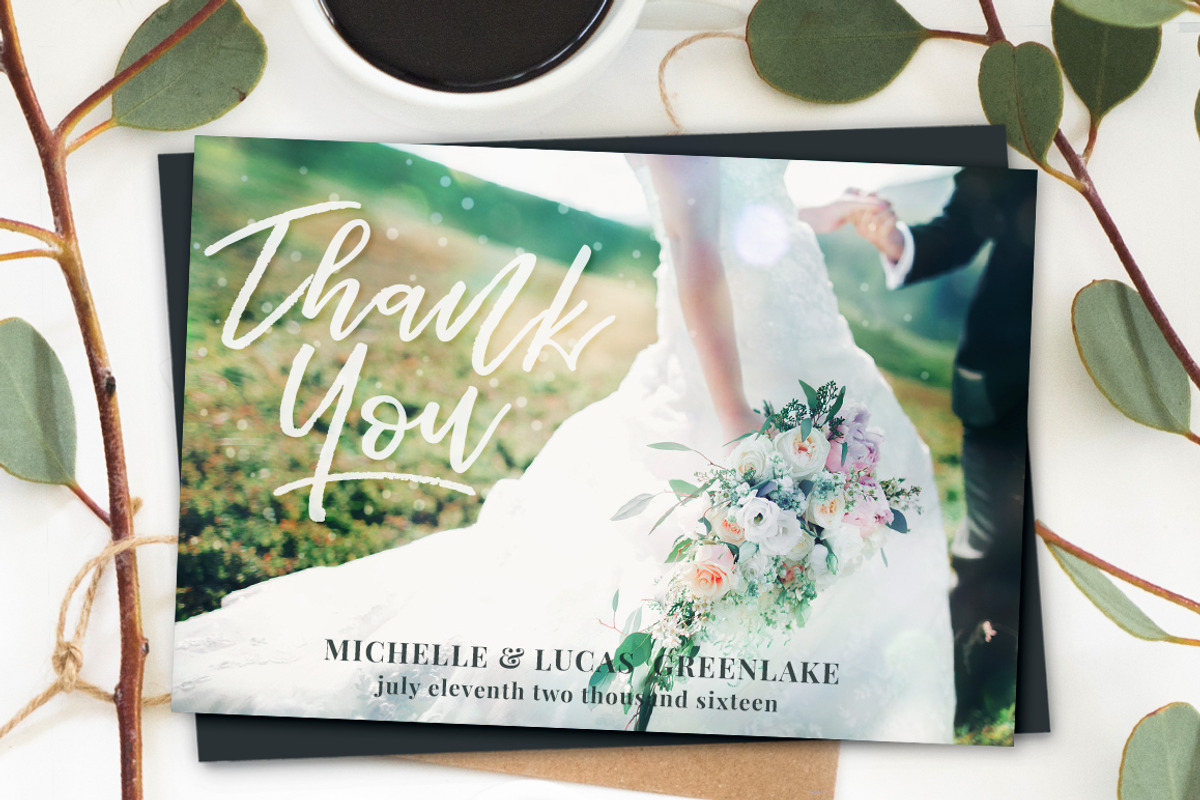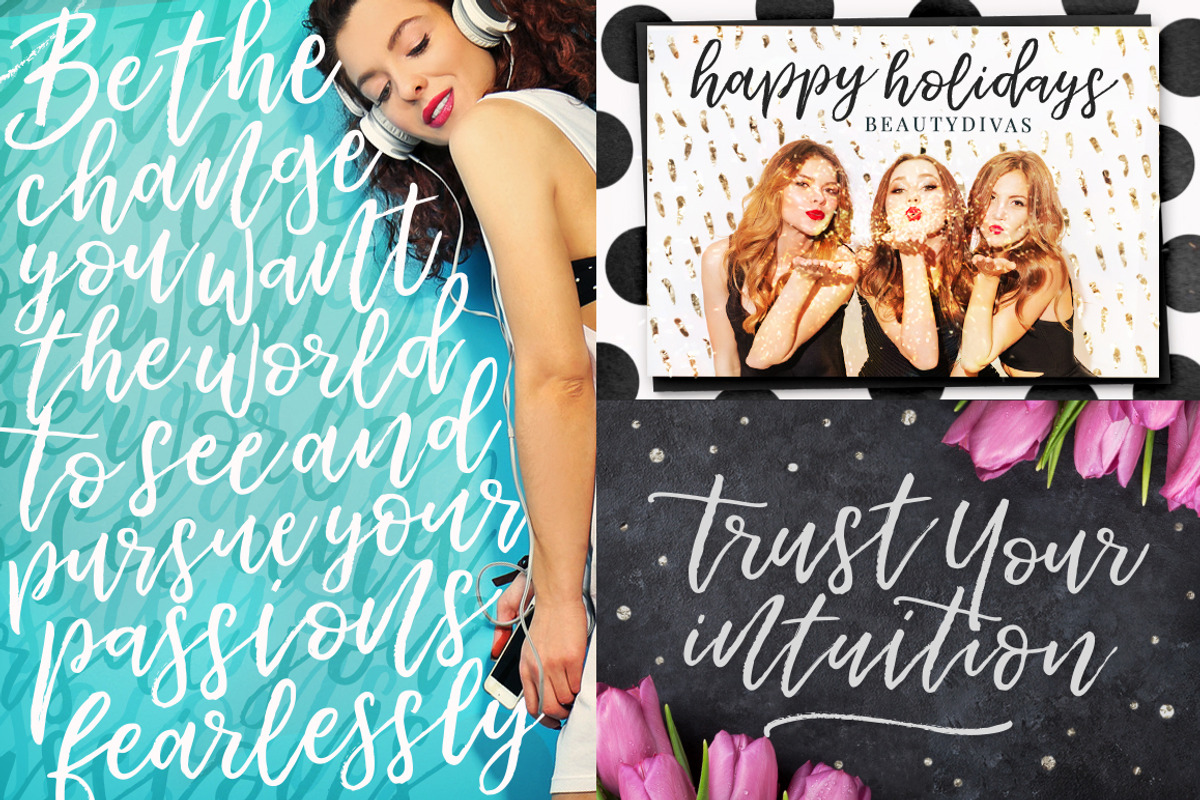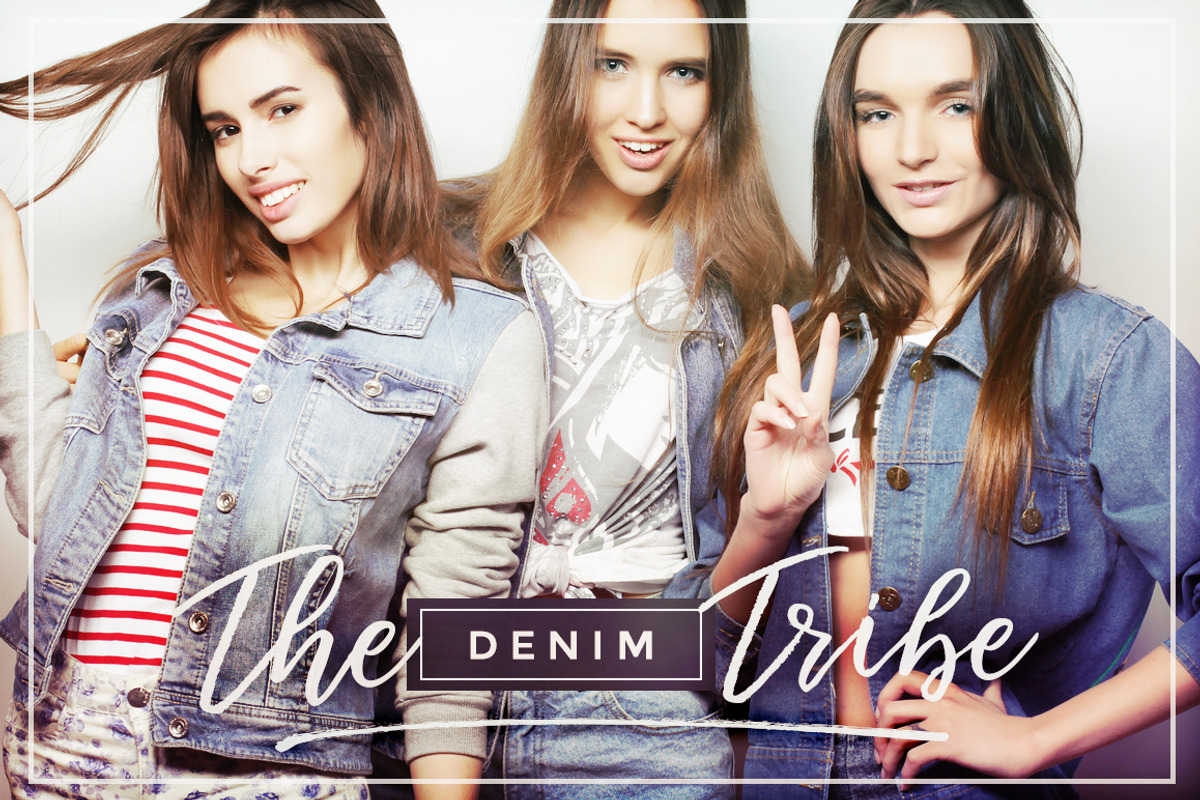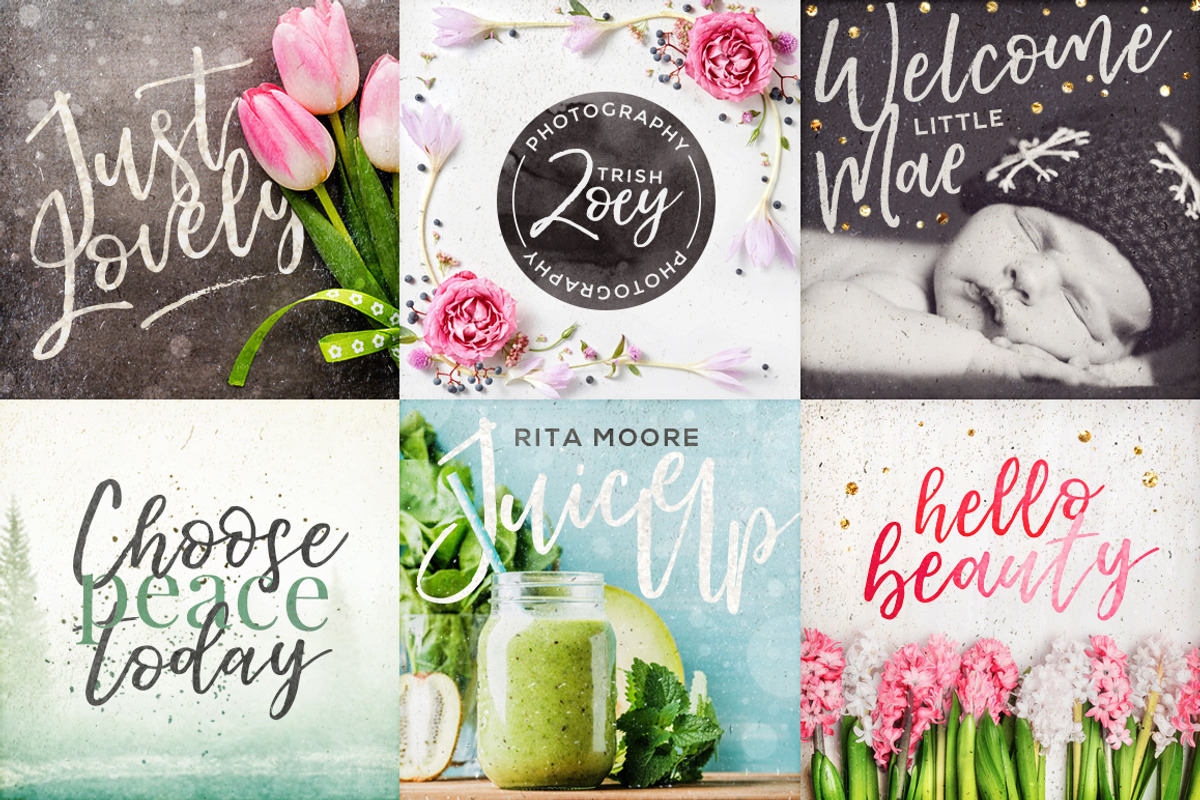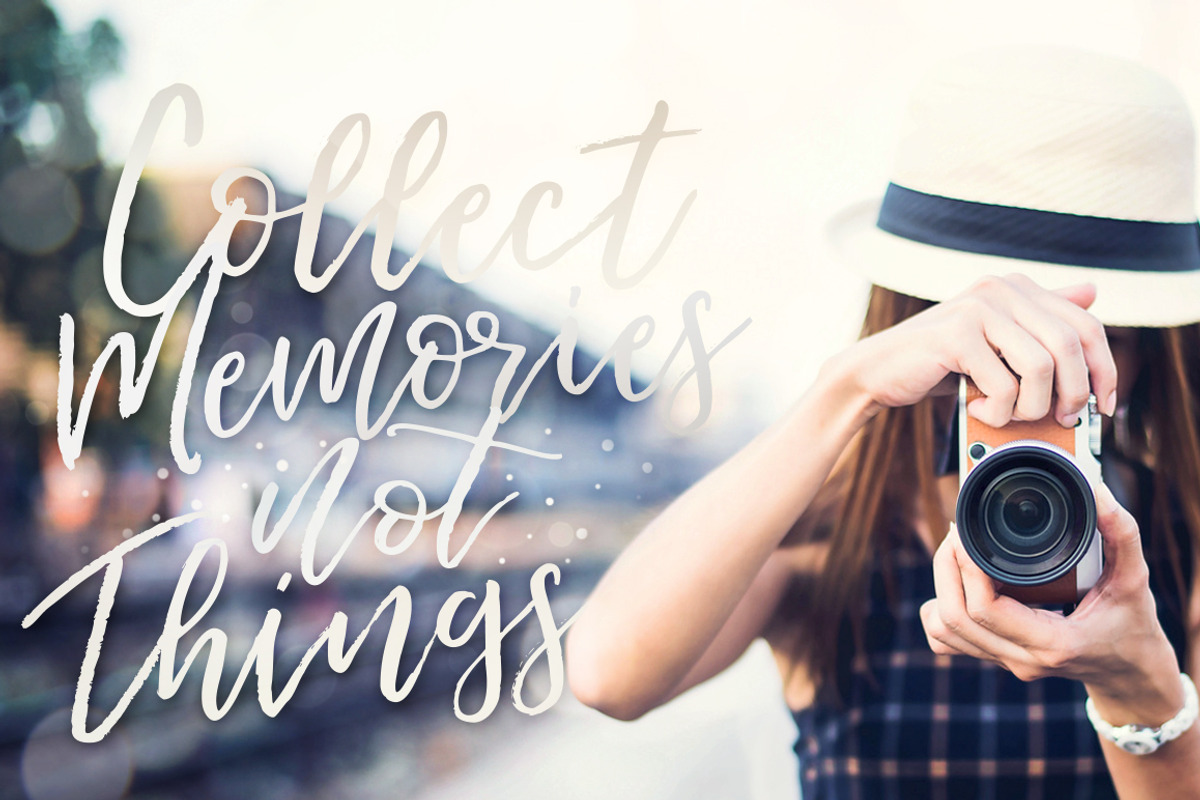
Loveline Brush Script + Swashes
♥ ♥ Introducing the super sweet Loveline! ♥ ♥
This pretty brush script typeface can be used in a variety of projects - may it be your beautiful logo, blog header, wedding invitations, prints, presentations or even book covers, why not? :) Aaaaand for a little variation, I included two lowercase alternate sets to spice it up. :)
LOVELINE TYPEFACE - in both OTF and TTF versions - which includes standard punctuation, numerals, international language support as well as a whole bunch of ligatures and two additional lowercase stylistic sets to play with. No more boring double letters baby! :)
LOVELINE ALT 1 - in both OTF and TTF versions is a duplicate of the original font ( includes the same uppercase, punctuation, numerals & international language support as above ), but instead of the regular lowercase letters, you get the the lowercase Stylistic set - 1.
LOVELINE ALT 2 - ( OTF and TTF ) again, a duplicate of the original font, but includes the lowercase Stylistic set - 2 instead of the original lowercase letters. :)
LOVELINE SWASHES - in both OTF and TTF versions - includes 23 textured swashes that can be accessed by typing lowercase a -- w ... plus there is a handy swashes contact sheet included... so you'll be able to preview them before typing. ;)
Used this as the display font for my latest product after struggling to find just the right balance between something legible and artistic. It's heavy enough to show off gold foil lettering without being too thick. Great for display text and easy to read, love the brushed look edges!
A beautifully crafted font with a wonderfully hand-drawn look - so unique, authentic and cute. I absolutely loved using it :)